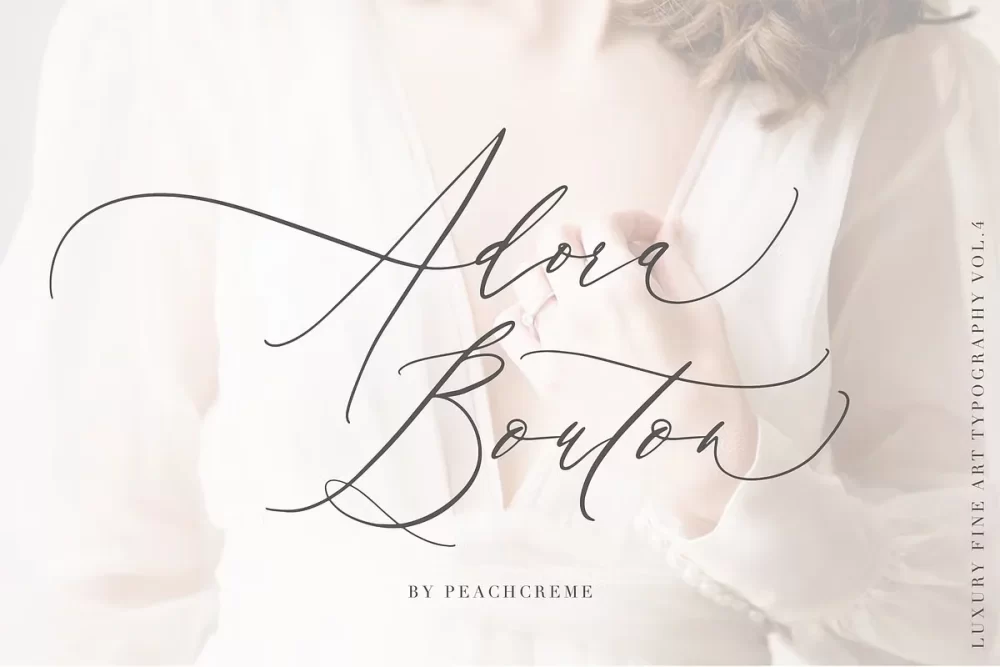
Adora Bouton is a modern calligraphy font with contemporary, sophisticated accents. It’s perfect for branding, wedding invites and cards, and even red wine labels.
It includes a full set of uppercase and lowercase letters, numerals, punctuation, and ligatures. All lowercase letters have beginning and ending swashes, giving them a realistic hand-lettered style. Uppercase letters also have beginning swashes, adding to the font’s elegance.